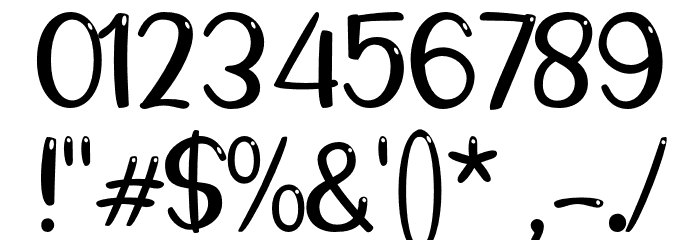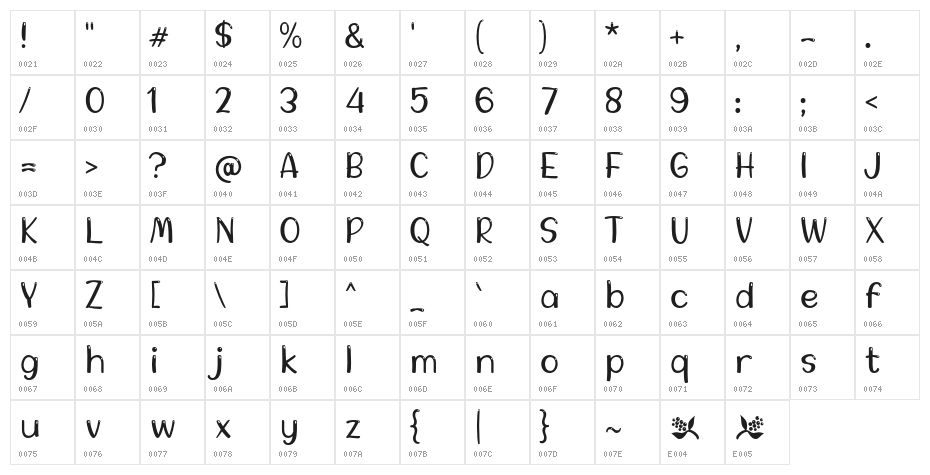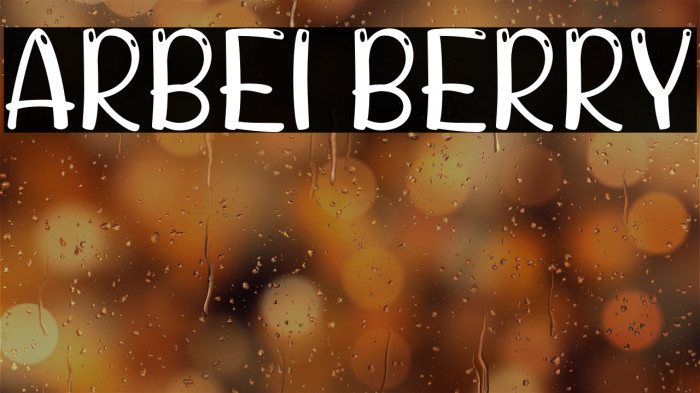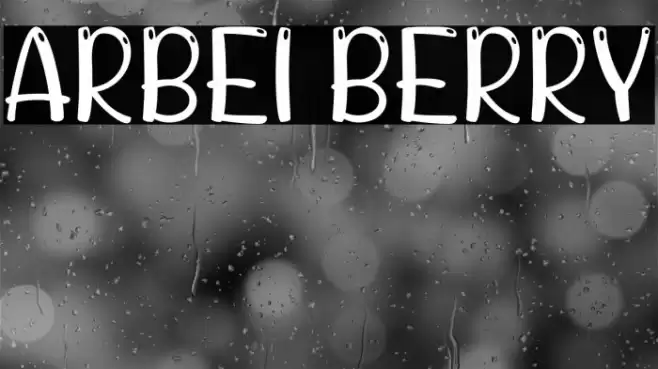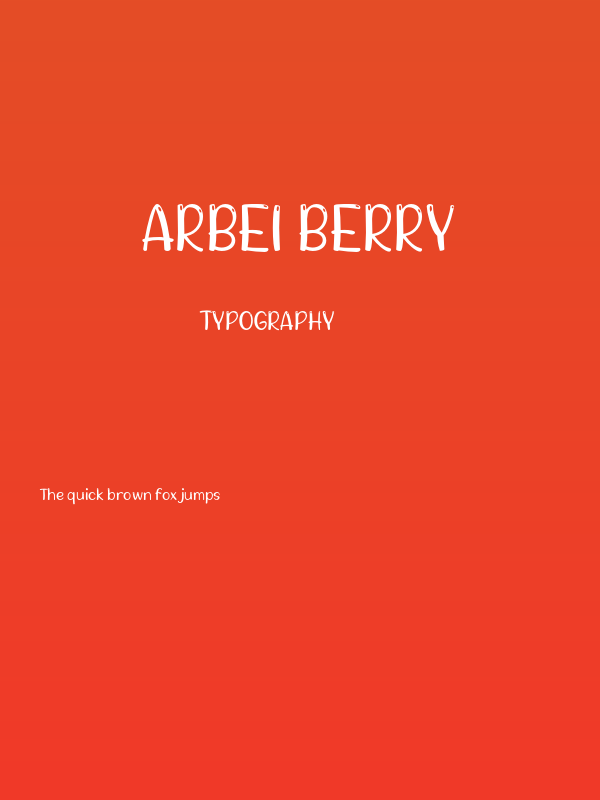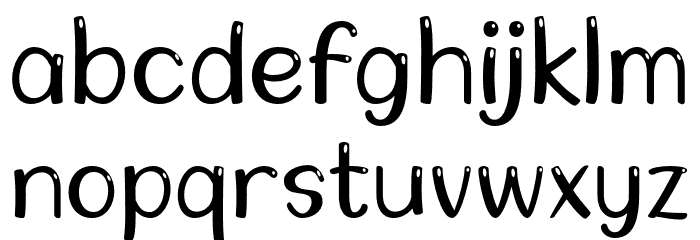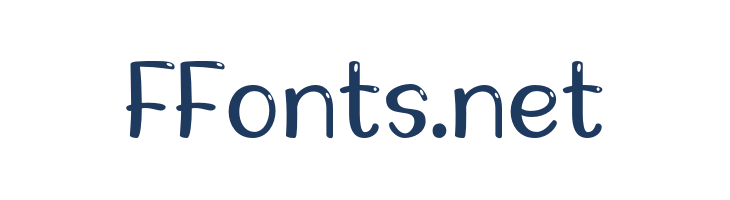
ARBEI BERRY Font
ARBEI BERRY Description
This playful and whimsical font features a hand-drawn style with rounded edges and a slightly irregular baseline, giving it a friendly and approachable appearance. The characters are bold and have a consistent stroke width, which adds to its legibility. The uppercase and lowercase letters are well-balanced, with a slight tilt that enhances its casual feel. The numerals and special characters maintain the same playful aesthetic, making it suitable for a variety of creative projects.
| Proposed Projects | Ideal for children's books, greeting cards, playful branding, and social media graphics. |